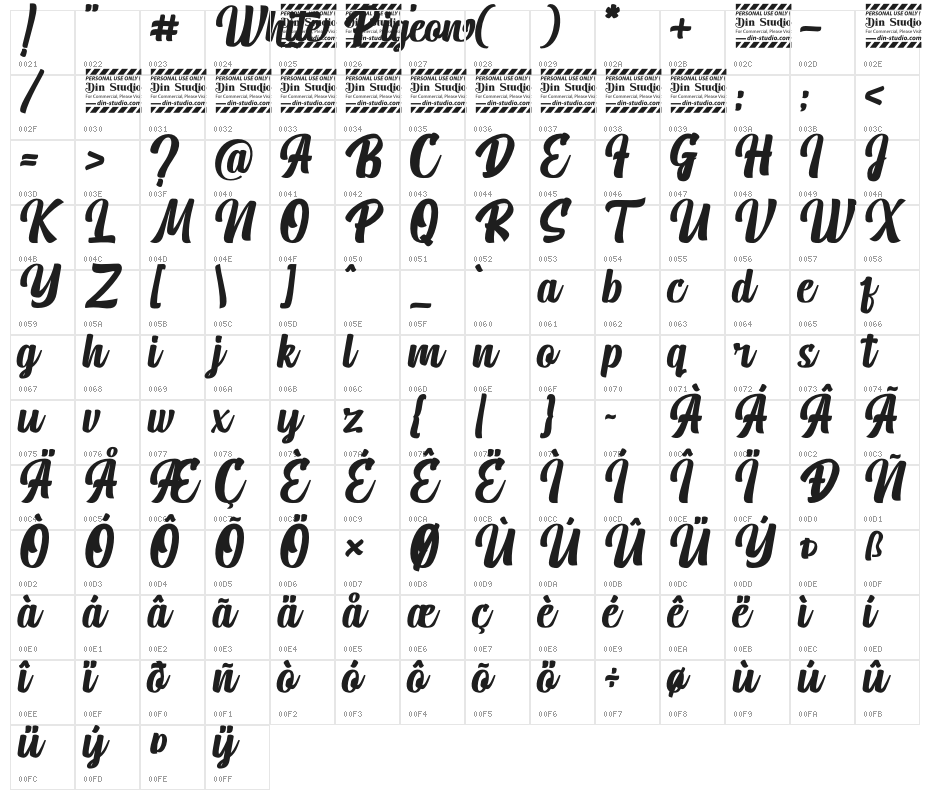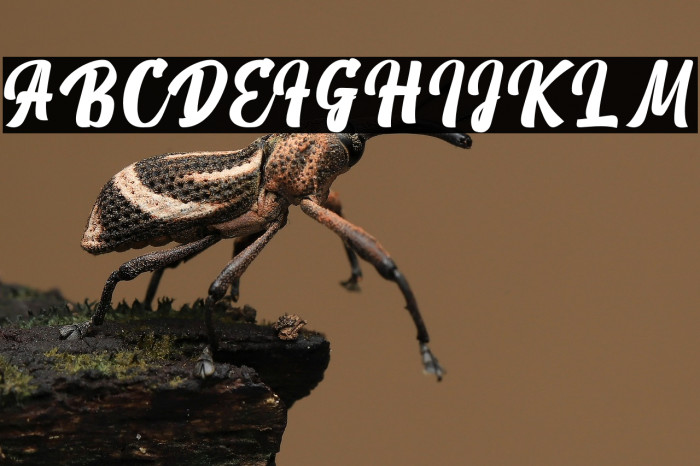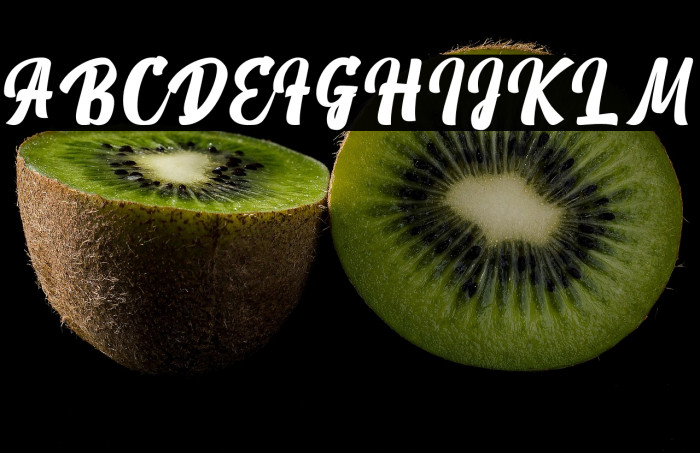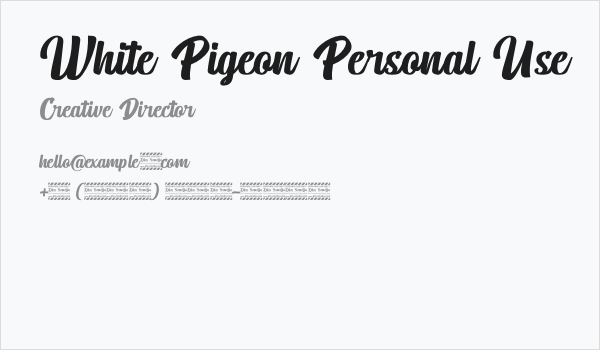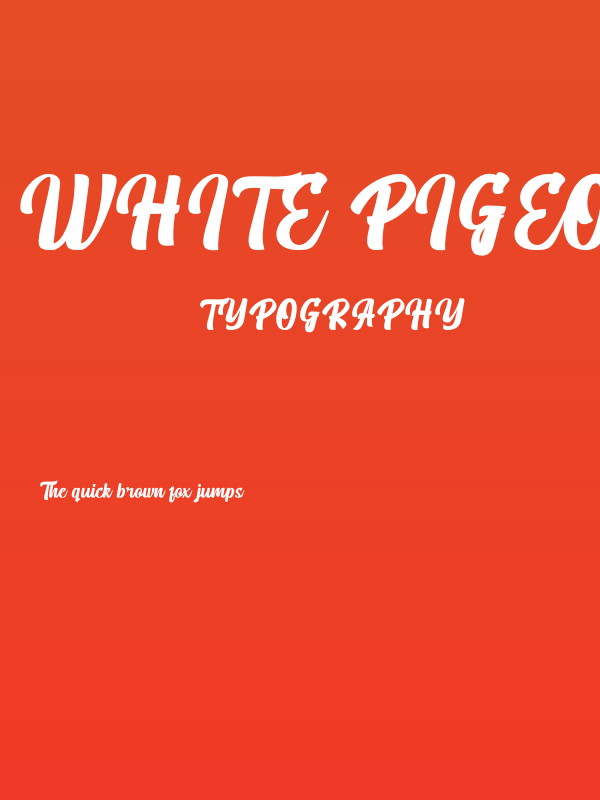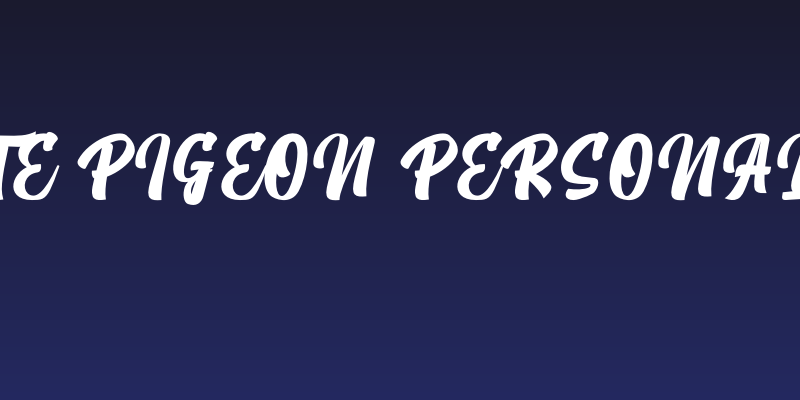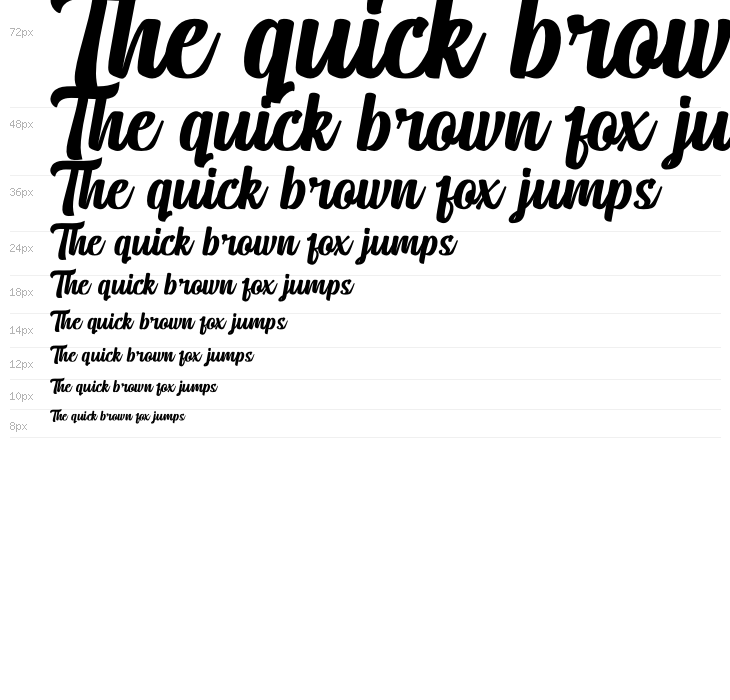
White Pigeon Personal Use Font
White Pigeon Personal Use Description
This font features a bold and flowing script style, characterized by its smooth, connected strokes and elegant curves. The uppercase letters are slightly more formal, with a consistent height and width, while the lowercase letters exhibit a playful, handwritten quality. The font maintains a uniform thickness throughout, providing a cohesive and polished appearance. Its distinctive style is both modern and classic, making it versatile for various design applications. The special characters complement the overall aesthetic, adding a touch of sophistication.